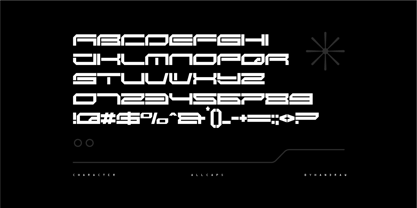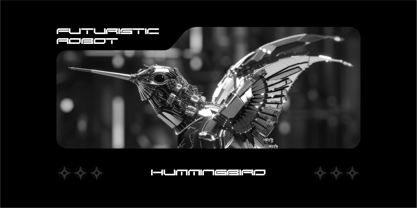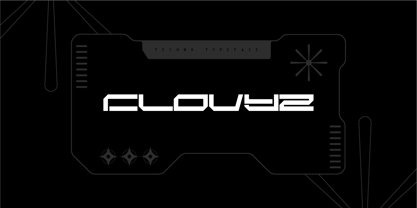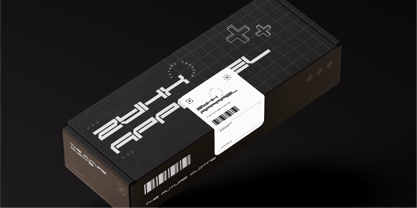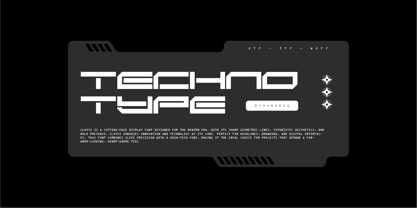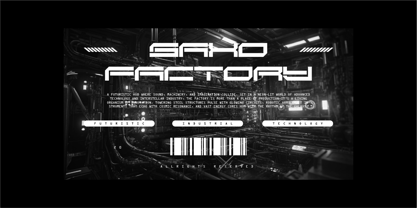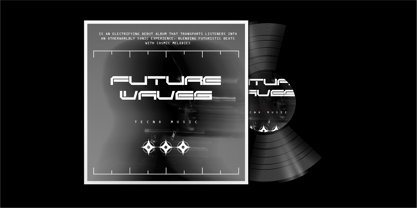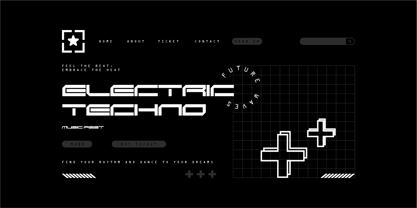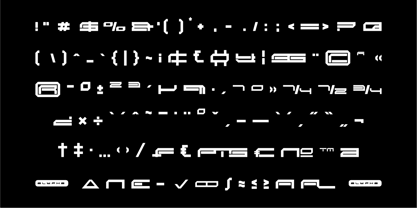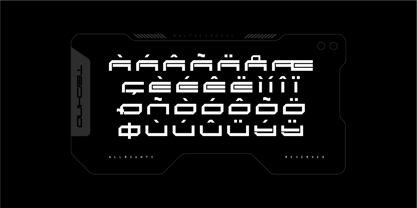
Clovyz
Clovyz is a cutting-edge display font designed for the modern era. With its sharp geometric lines, futuristic aesthetics, and bold presence, Clovyz embodies innovation and technology at its core. Perfect for headlines, branding, and digital interfaces, this font combines sleek precision with a high-tech vibe, making it the ideal choice for projects that demand a forward-looking, avant-garde feel.
Typeagle is an Indonesian type design studio specializing in graphic design and futuristic display fonts. The studio focuses on creating distinctive typefaces that combine modern aesthetics, technological inspiration, and bold visual identities. Typeagle develops custom fonts designed for branding, posters, digital media, gaming, entertainment, and creative projects that require a strong futuristic character.